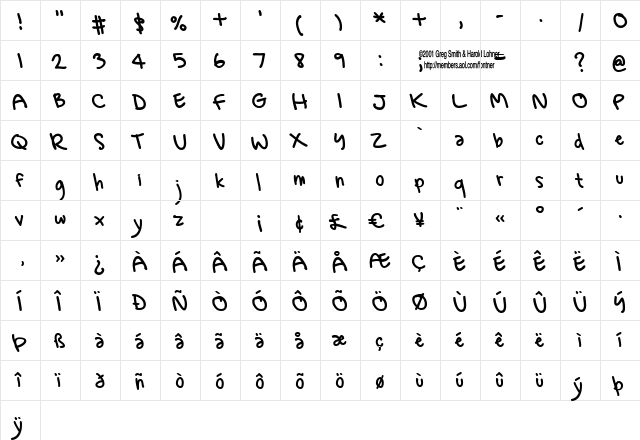
Greg's Hand Regular Font Preview
Greg's Hand Regular
Greg's Hand Regular Font Details
Design Context for Greg's Hand Typeface
Greg's Hand flows with the natural rhythm of handwritten lettering, making it ideal for designs that call for warmth and personal expression.
Font Pairing: Combine Greg's Hand with a simple geometric sans for maximum contrast — the tension between flowing curves and clean structure is a classic typographic pairing.
Pro Tip: Pair Greg's Hand with a clean sans-serif for supporting text. The contrast between fluid script and geometric structure creates an elegant typographic hierarchy.